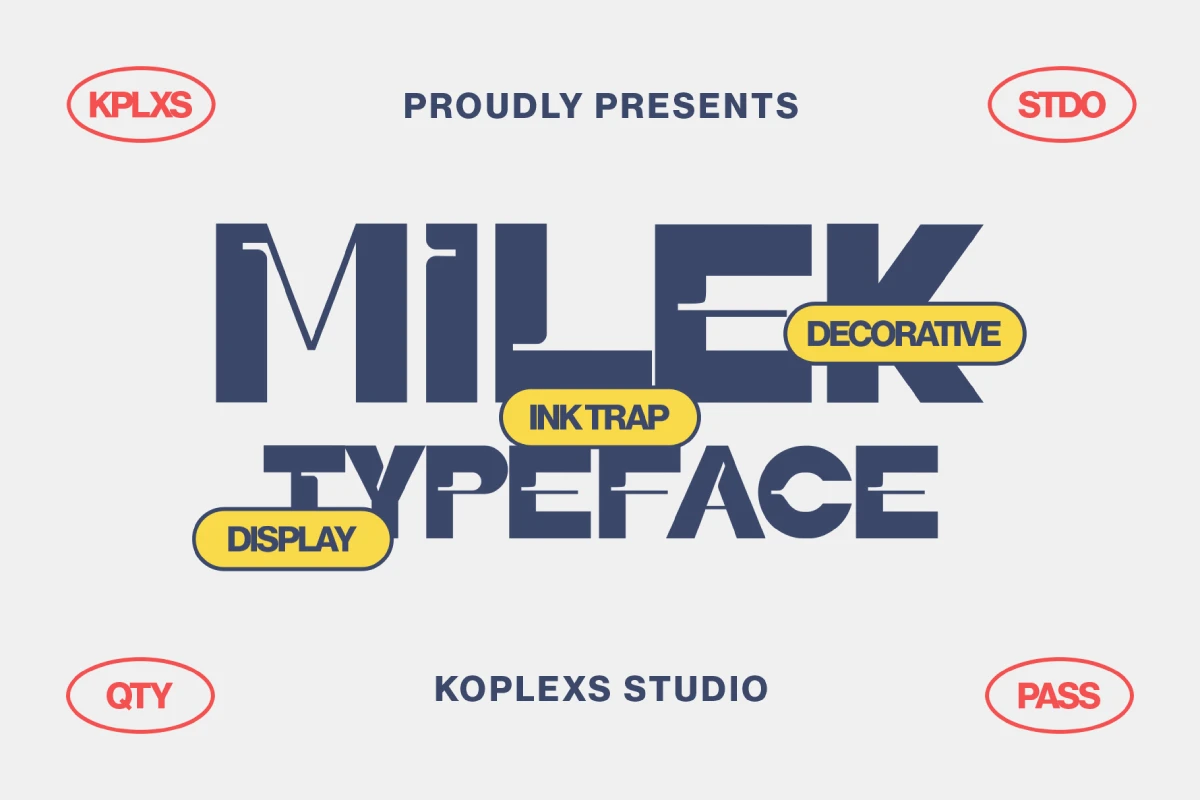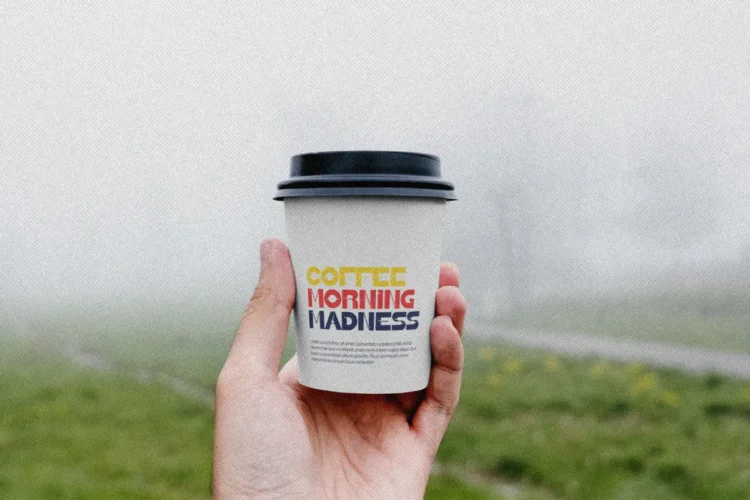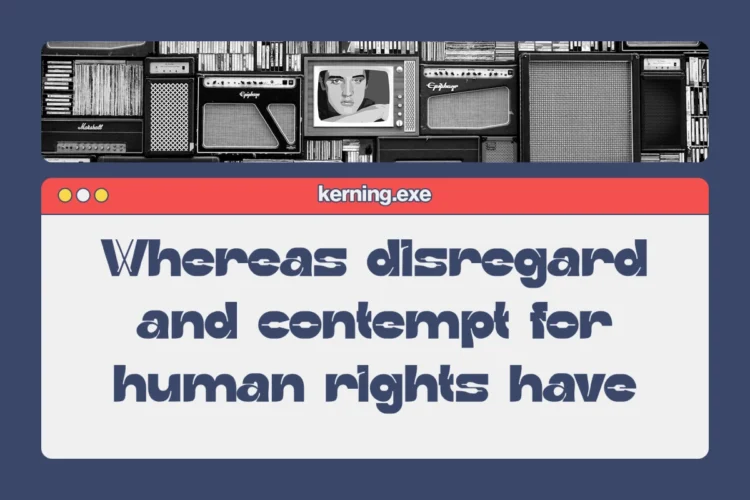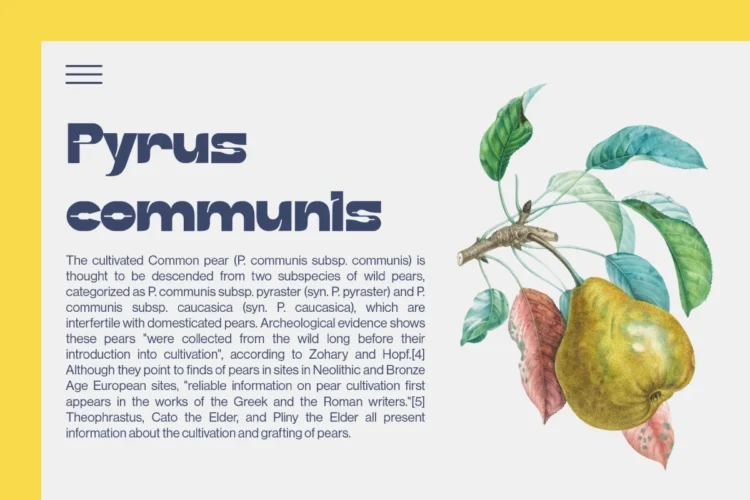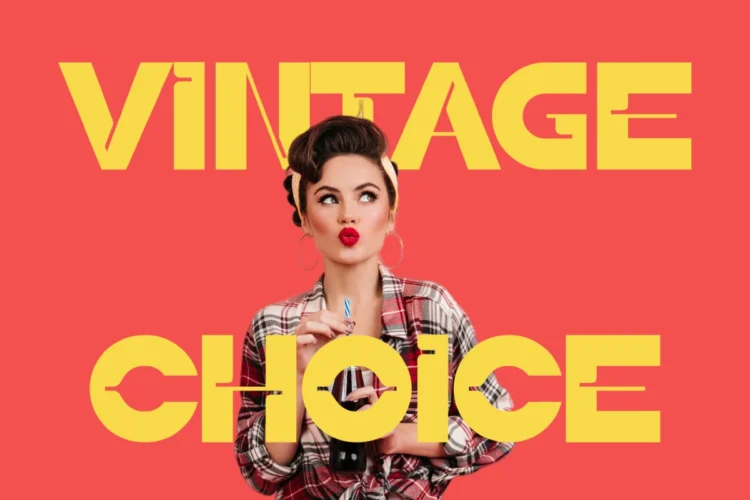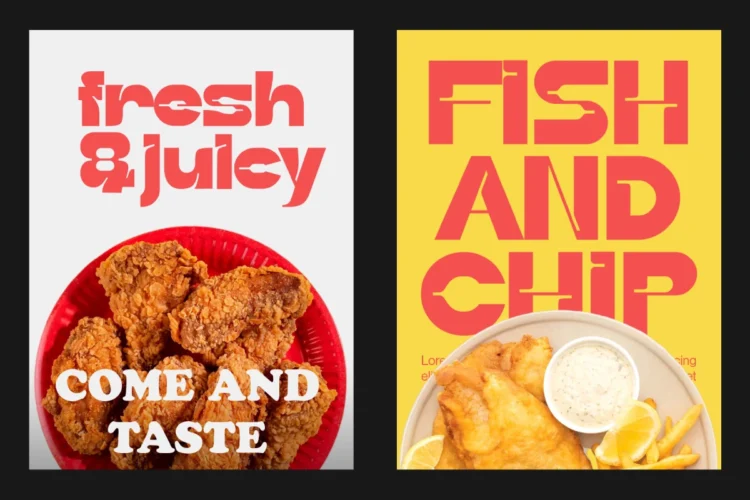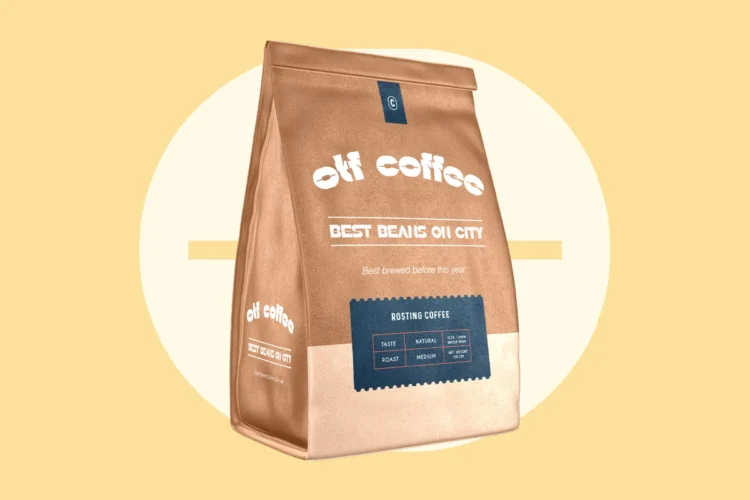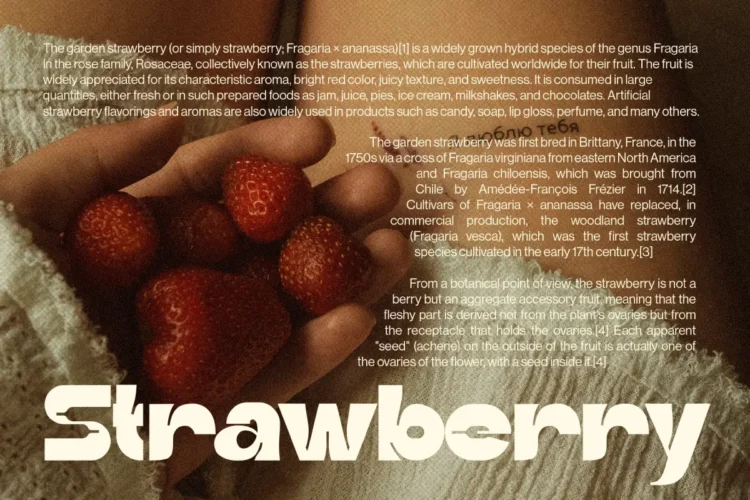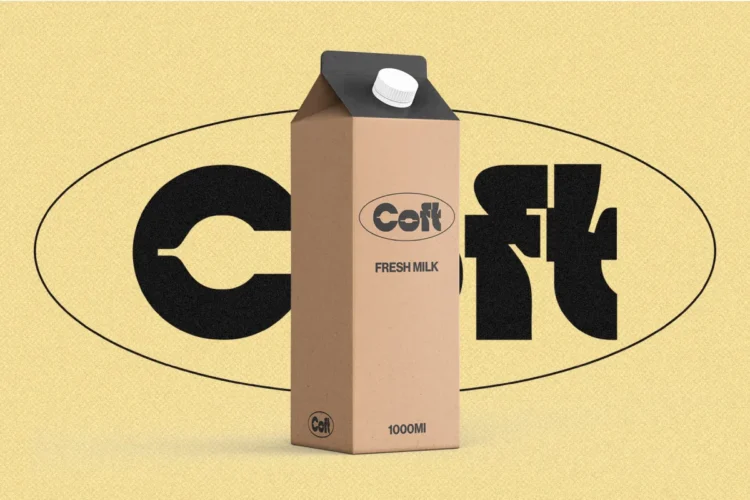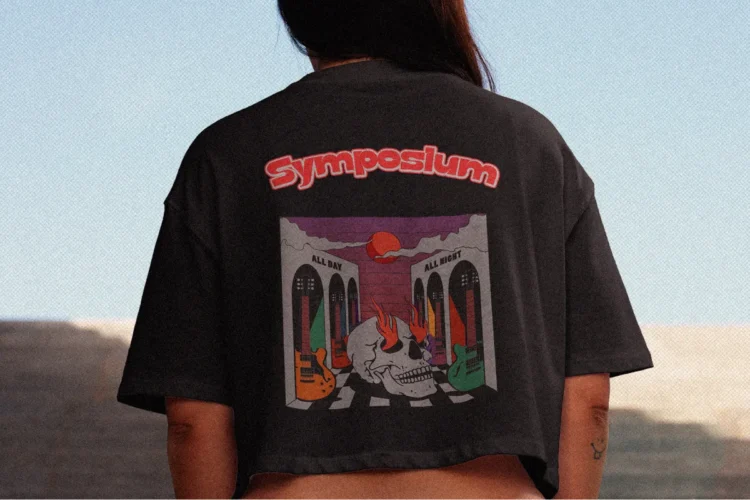
Milek Font
Milek Font – Modern Display Font with Chunky Ink Trap Style for Branding & Posters
Milek Font is a modern sans serif font with a chunky and bold design, inspired by retro-futuristic display typography. It’s a display font that combines ink trap aesthetics with geometric elegance, making it a cool font choice for designers who love strong character and personality in their visuals. Crafted by Koplexs Studio, this typeface blends decorative shapes with smooth ink traps, resulting in a goods font ideal for bold and standout designs.
With its bold and elegant letterforms, Milek Font works perfectly as a branding font, logo font, or headline font for high-impact projects. Its unique design ensures your message captures attention, while still maintaining a clean, professional look typical of modern fonts.
Masku Font is versatile and works beautifully for :
• Branding & Logos – create a memorable brand identity
• Posters & Covers – ideal as a poster font or cover font for eye-catching layouts
• Packaging Design – perfect for coffee, fashion, or food product packaging
• Editorials & Magazines – use as a heading font or headline font
• Apparel & Merchandise – stylish for t-shirt designs and promo materials
✨Masku Font Features:
• Chunky geometric structure with stylish ink traps
• Bold sans serif style for maximum legibility
• Decorative yet modern aesthetic
• Great for large headlines and impactful visuals
Whether you’re designing a cool vintage poster, a modern logo, or elegant branding visuals, Milek Font provides the perfect blend of boldness and sophistication.
Milek Font is a bold modern display font with a chunky sans serif design and elegant ink traps. Perfect for branding, logos, posters, covers, and packaging, this cool and stylish font makes any design stand out with confidence and clarity. Created by Koplexs Studio, Milek Font brings retro charm with a modern twist.